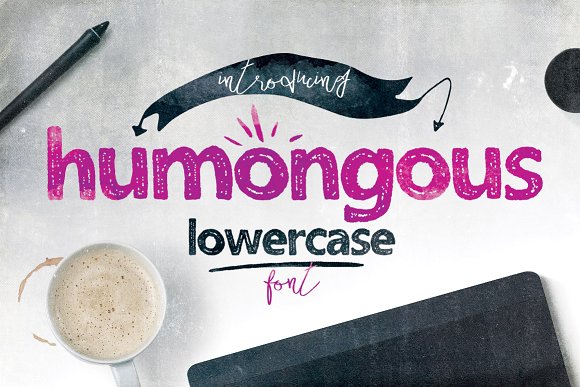
Introducing Humongous Font - A Monumental Display of Creative Expression!
In a world saturated with digital monotony, Humongous Font emerges as a towering beacon of creativity, a testament to the transformative power of typography. This handcrafted masterpiece, meticulously designed by the visionary artists at Creativeqube, is a stunning display font that commands attention and leaves an indelible mark on the visual landscape.
Journey into the realm of Humongous Font and discover a world where letters dance with grace and precision, where each character is a work of art, a symphony of curves and angles. Experience the sheer magnitude of this font, as its bold strokes and sweeping lines fill your designs with an aura of grandeur.
With Humongous Font, the ordinary becomes extraordinary. Elevate your branding, captivate your audience, and leave a lasting impression that will resonate long after the final pixel fades. From logos that demand attention to headlines that leap off the screen, Humongous Font is the ultimate weapon in your creative arsenal.
Unleash the boundless potential of Humongous Font and witness the transformation of your designs. Its versatility knows no bounds, adapting seamlessly to a symphony of creative endeavors. Craft stunning posters that ignite imaginations, design social media graphics that spark conversations, or weave captivating stories through eye-catching website designs.
Immerse yourself in the world of Humongous Font and unlock a treasure trove of creative possibilities. Let your imagination soar as you mold this font into a reflection of your unique vision. With Humongous Font, the mundane becomes magnificent, the ordinary becomes extraordinary, and the everyday transforms into a breathtaking spectacle of visual artistry.
Embrace the grandeur of Humongous Font today and embark on a creative journey that will leave you breathless. Let your designs reach new heights, your messages resonate with power, and your brand shine brighter than ever before.